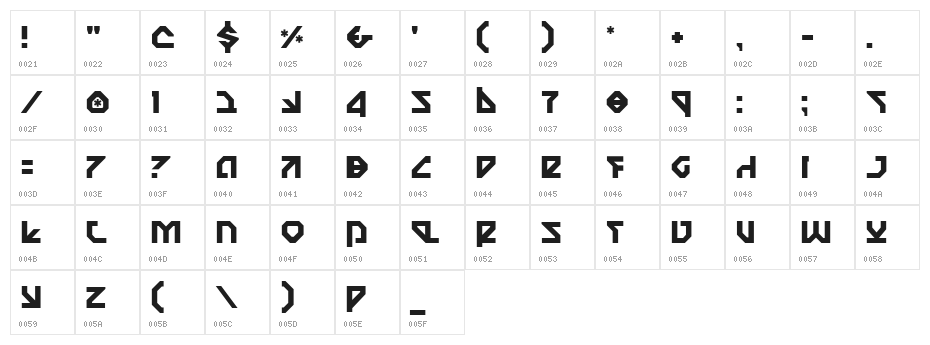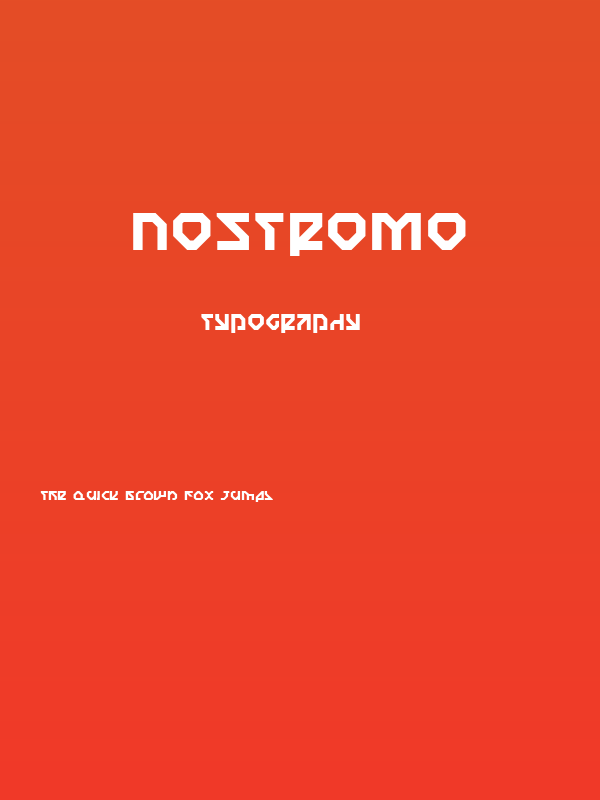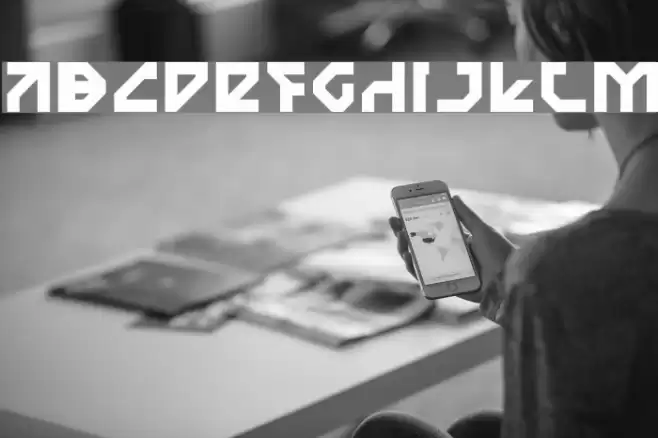
Nostromo Font
Nostromo Description
This font features a futuristic and angular design, characterized by sharp edges and geometric shapes. The uppercase and lowercase letters maintain a consistent style, with a bold and impactful appearance. The numbers and special characters are designed to match the overall aesthetic, providing a cohesive look. The font's unique style makes it stand out, with a modern and tech-inspired feel that is both eye-catching and distinctive.
| Proposed Projects | Ideal for sci-fi themed projects, technology branding, video game titles, and modern posters. |